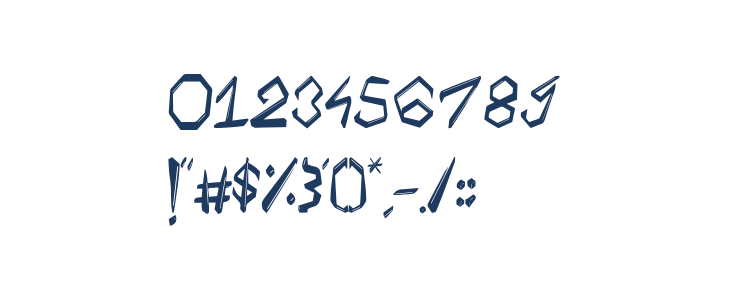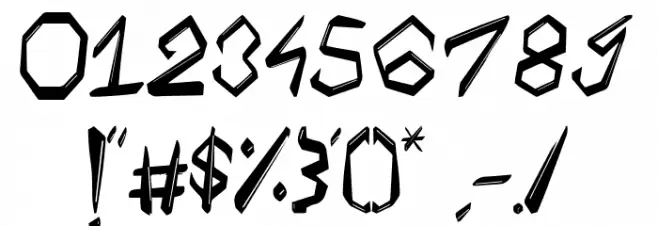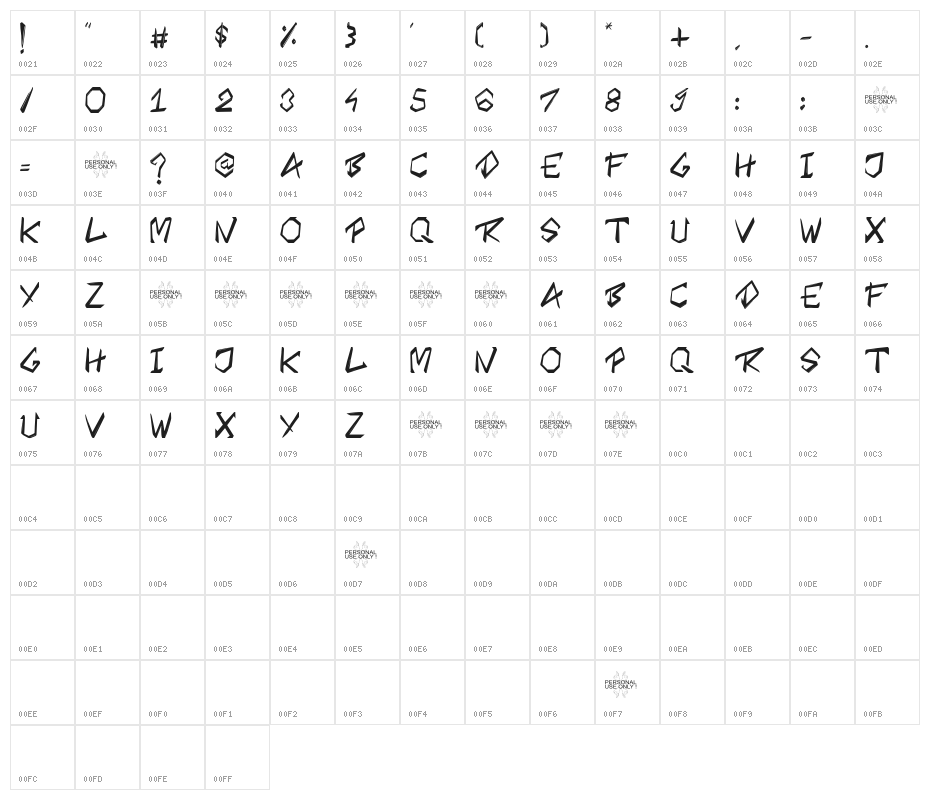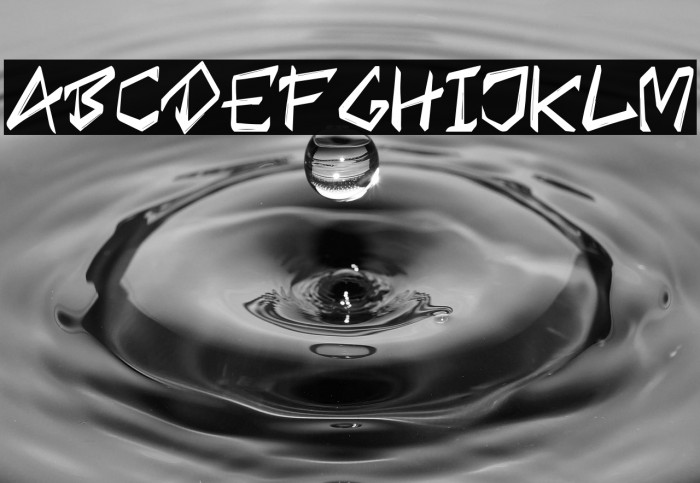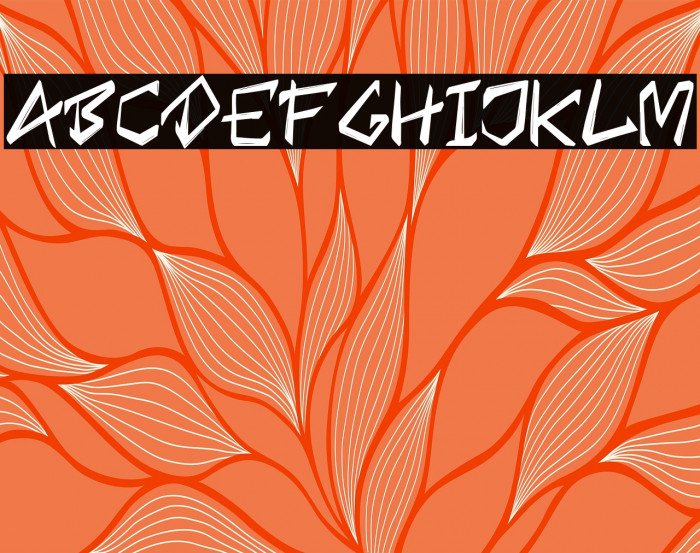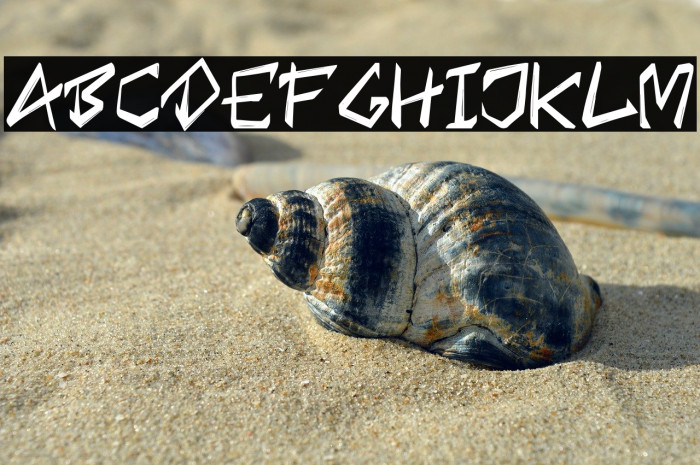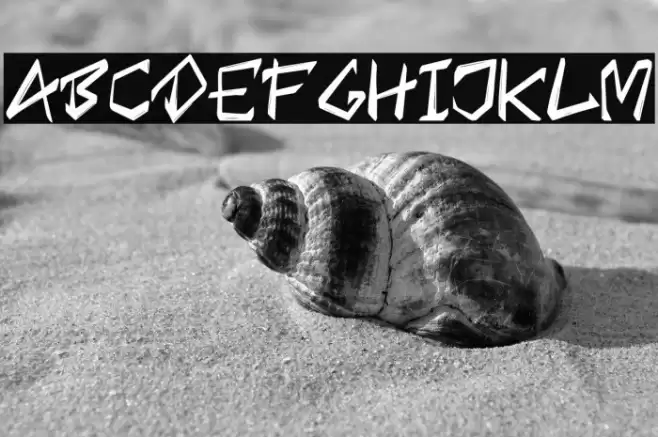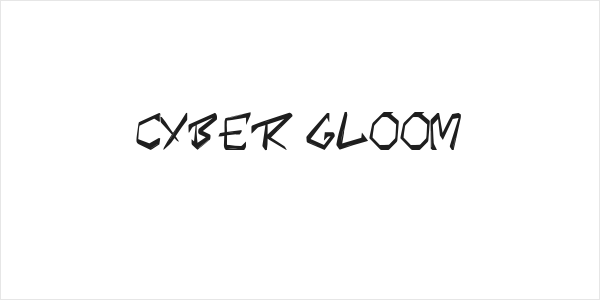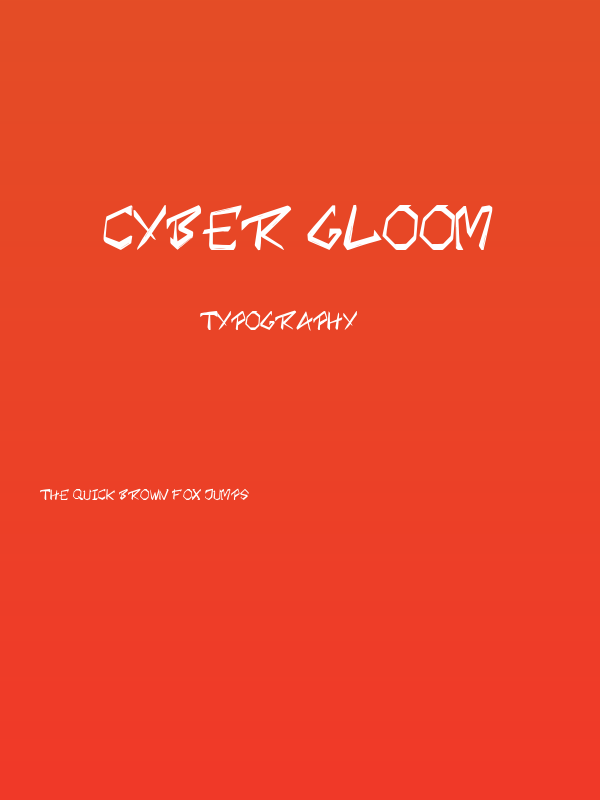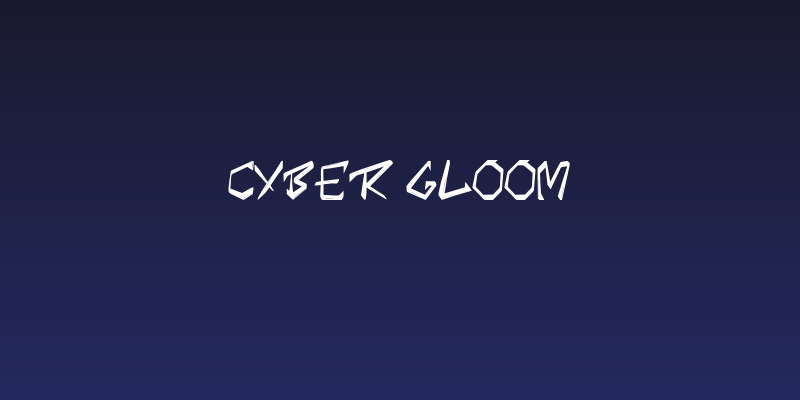
Cyber Gloom Font
Cyber Gloom Description
This font features a bold and angular design, characterized by sharp edges and a futuristic aesthetic. The letters are stylized with a geometric flair, creating a sense of movement and energy. The uppercase and lowercase characters maintain a consistent style, with a slightly condensed form that enhances the dynamic appearance. The numbers and special characters follow the same angular theme, ensuring a cohesive look across all elements. The font's unique style makes it stand out, offering a modern and edgy feel suitable for various creative projects.
| Proposed Projects | Ideal for sci-fi themed posters, video game titles, tech branding, and edgy graphic designs. |